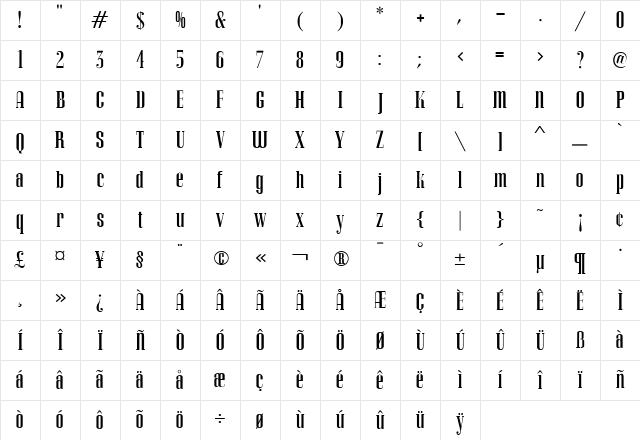
Complete APCorvinusSkylineExpert Regular glyph index. Displaying only characters natively supported by APCorvinusSkylineExpert Regular font.
APCorvinusSkylineExpert is a composed and adaptable typeface that performs quietly and consistently across a wide range of design contexts.
Who designed the APCorvinusSkylineExpert Regular font?
This font was published by Ann Pomeroy, February. Check the technical specs section for copyright and designer details.